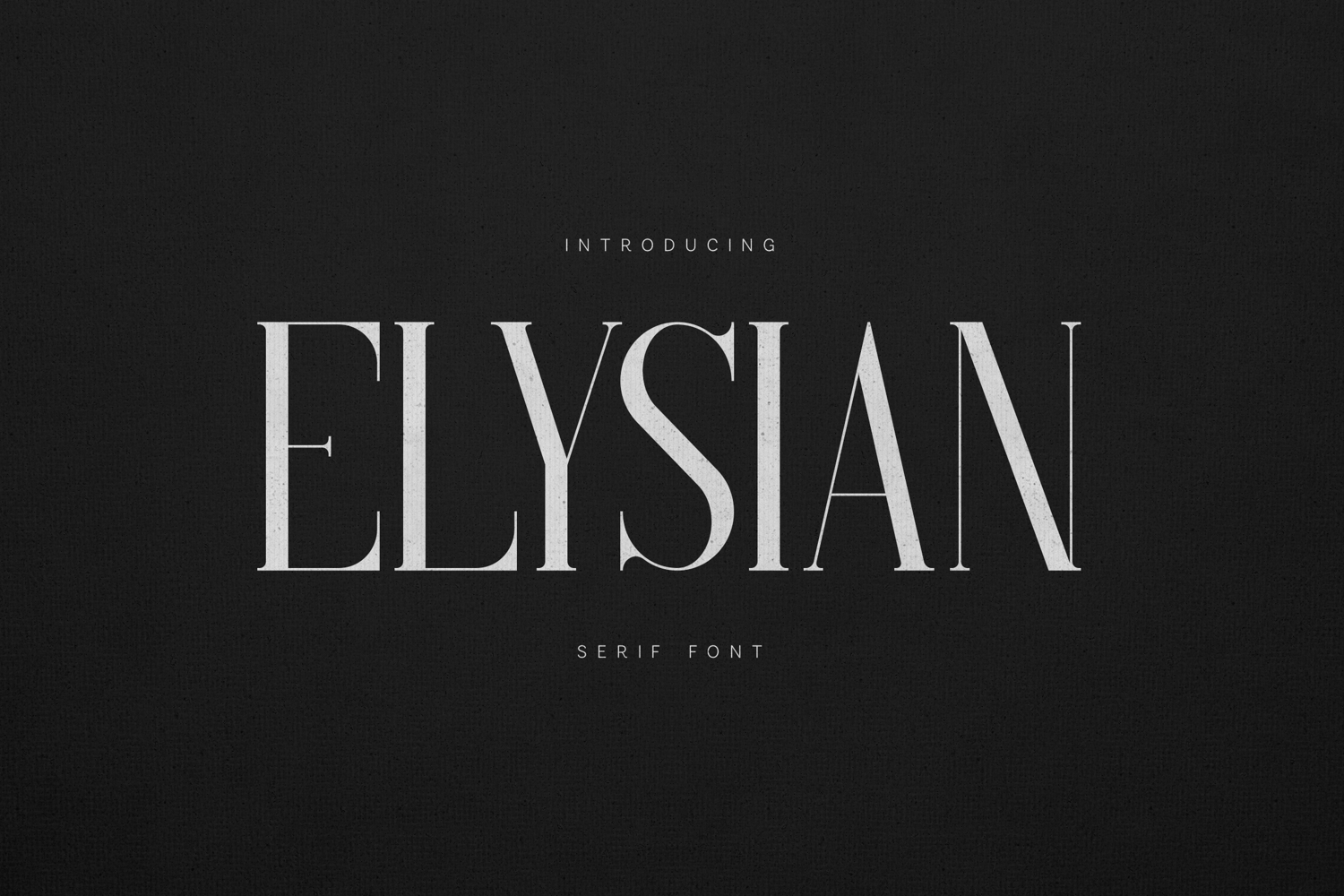
Elysian Elegant Modern Serif Font
Elysian is a refined modern serif typeface designed to bring elegance, clarity, and sophistication to contemporary design projects. With its tall proportions, delicate contrast, and graceful letterforms, Elysian combines classical typography principles with a modern editorial aesthetic.
The font features clean vertical strokes and subtle serif details that create a luxurious and professional appearance. Its balanced structure allows it to work beautifully in both large display settings and refined typographic compositions.
Elysian is ideal for luxury branding, fashion editorials, magazine layouts, logo design, packaging, invitations, and premium visual identities. The elegant letterforms give designers the ability to create striking compositions that feel timeless yet modern.
The typeface includes uppercase letters, lowercase letters, numbers, punctuation, and extended multilingual characters, making it suitable for international design projects.
Whether you’re designing high-end branding, stylish editorial layouts, or sophisticated marketing materials, Elysian delivers a polished and timeless typographic presence.